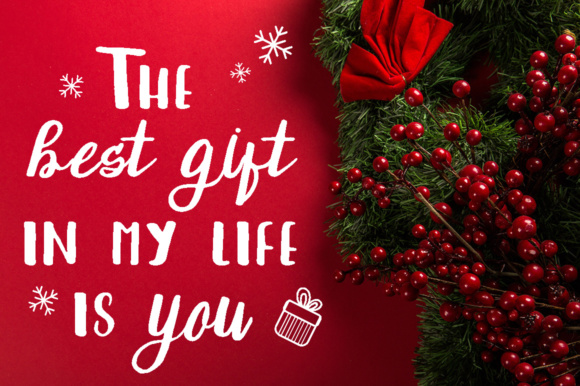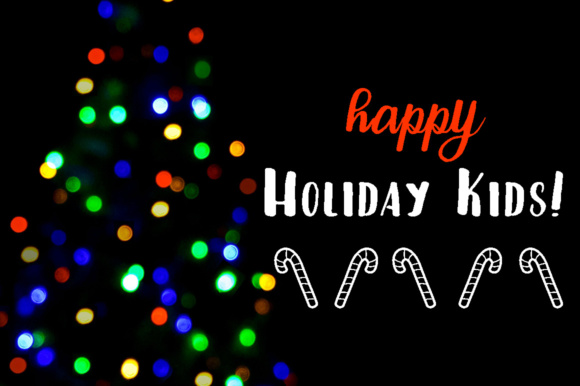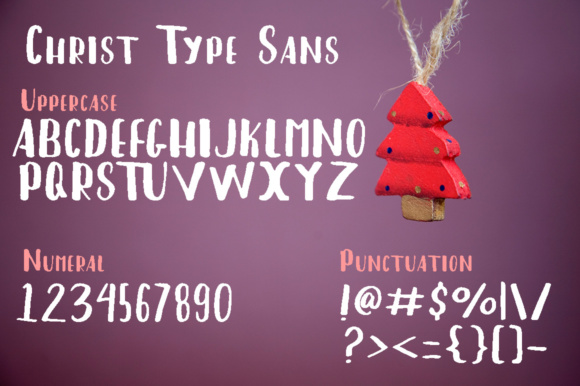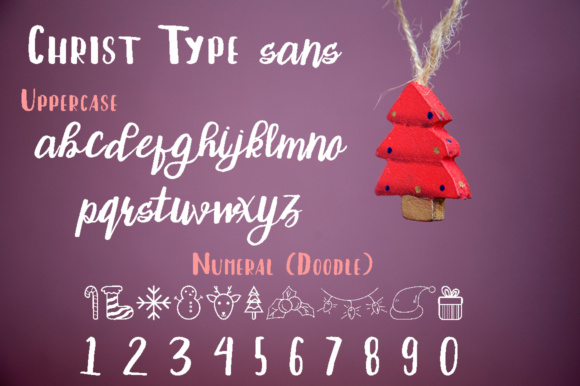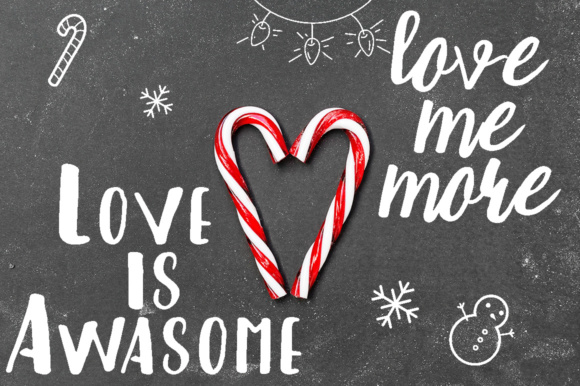
Introduction to Christ Type Duo Font
The Christ Type is a fun, handwritten font duo that will perfectly fit in winter and Christmas projects.
It can be used for various purposes such as: t-shirts, posters, cards, etc It comes in Sans font and script font, with extra doodles included in the numeral script font.